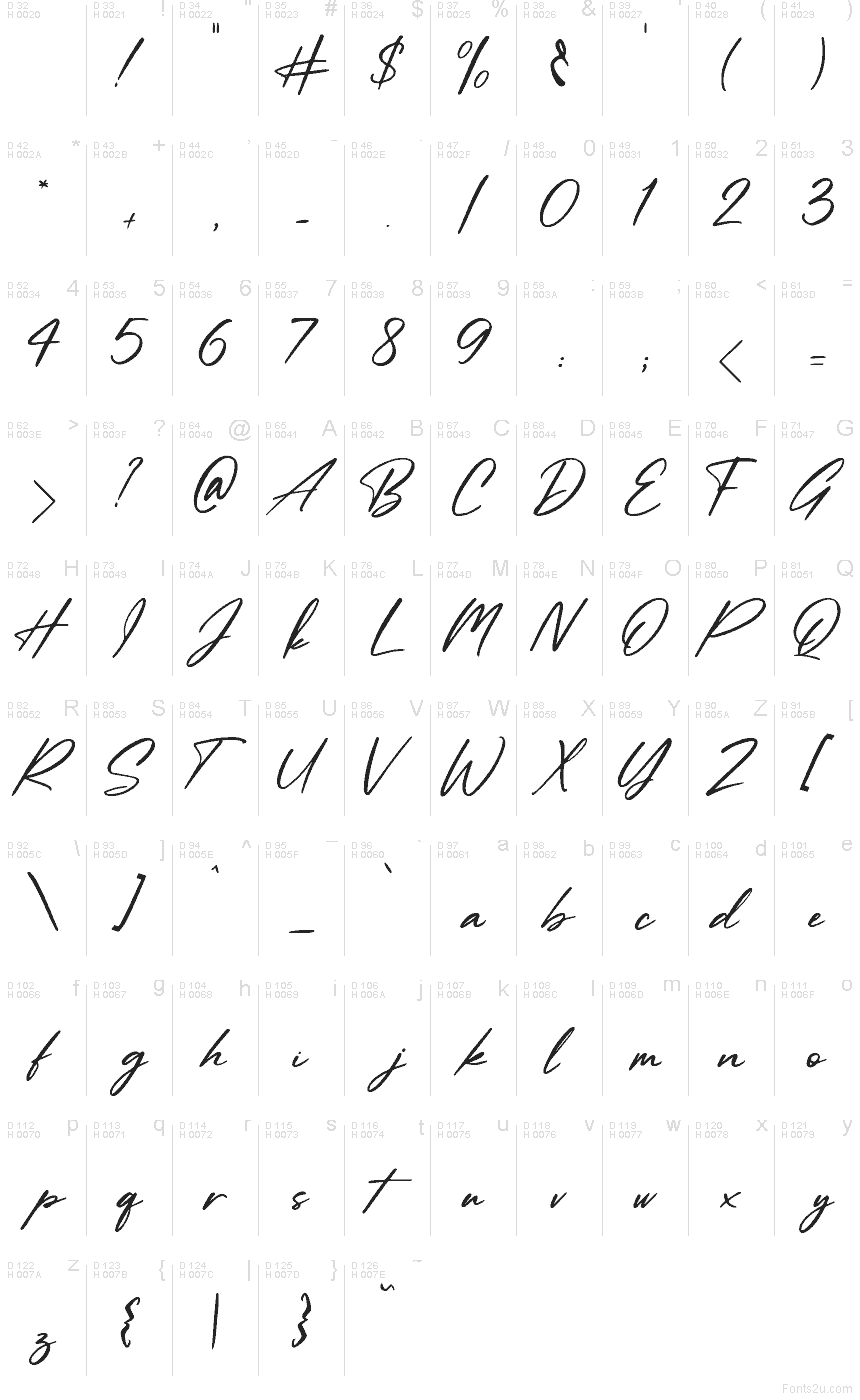
The Gate of the Moon
The Gate of the Moon font by BlackFridayFont FMF is a free handwritten script typeface that feels like ink brushed in a single, confident motion. Slender strokes sweep and loop with just enough texture to feel human, while the steady slant keeps words flowing like a signature across glossy paper. There’s a soft, romantic pull to it—elegant but not stiff, like a note left under candlelight rather than a formal invitation.
Using The Gate of the Moon font, you can give quotes, wedding stationery, brand marks, packaging, social media posts, and book covers a refined, handwritten glow. This free font shines when set a little larger, letting those airy curves and long connections breathe. Pair it with a clean, light sans serif for body text, and let The Gate of the Moon handle the names, headlines, and moments that need a touch of quiet drama.